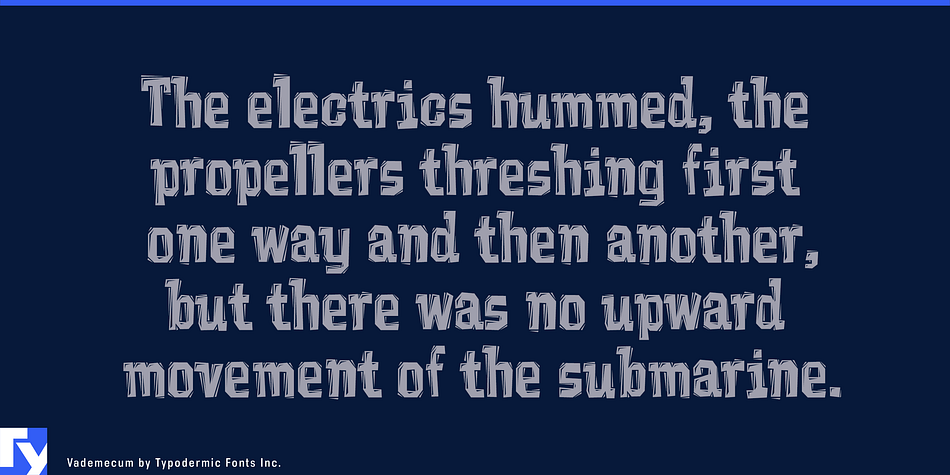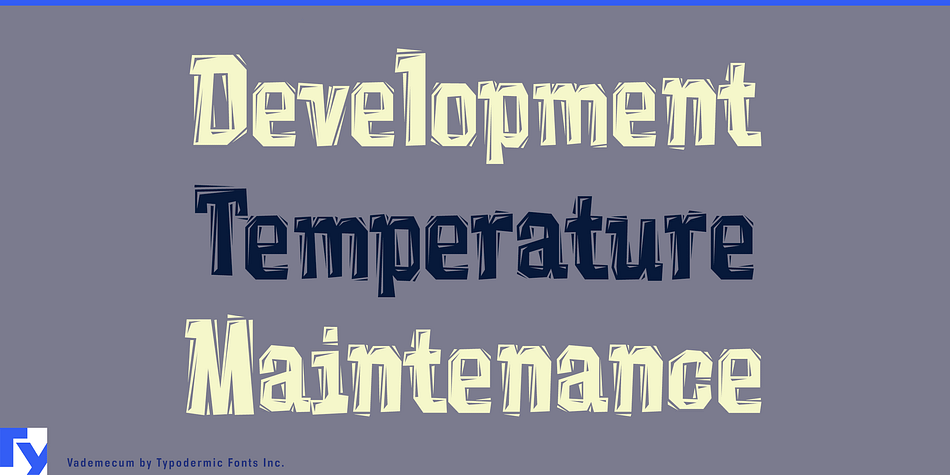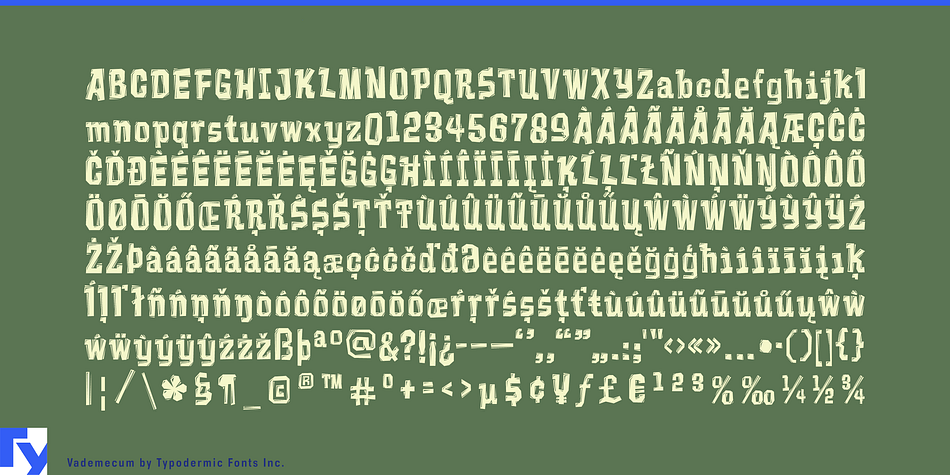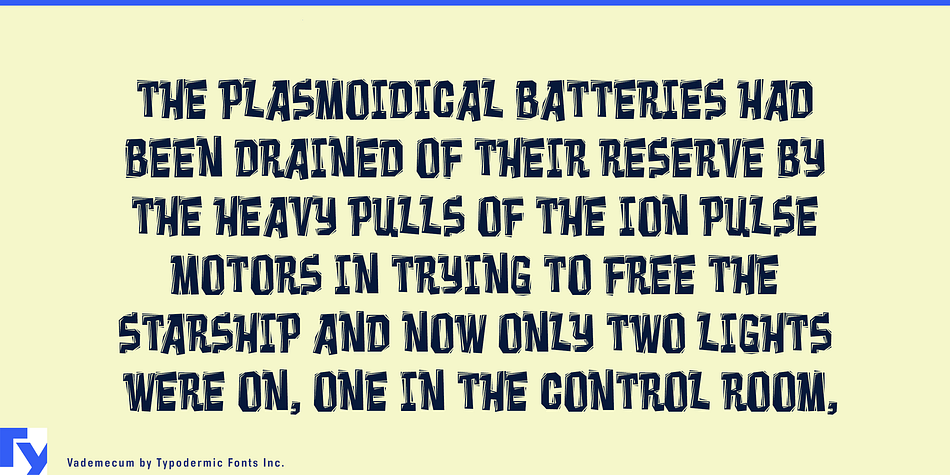
Vademecum is a kids font published by Typodermic Fonts Inc.
Vademecum is a linocut font if by lino, you mean computer mouse. It is a computer mouse cut font.